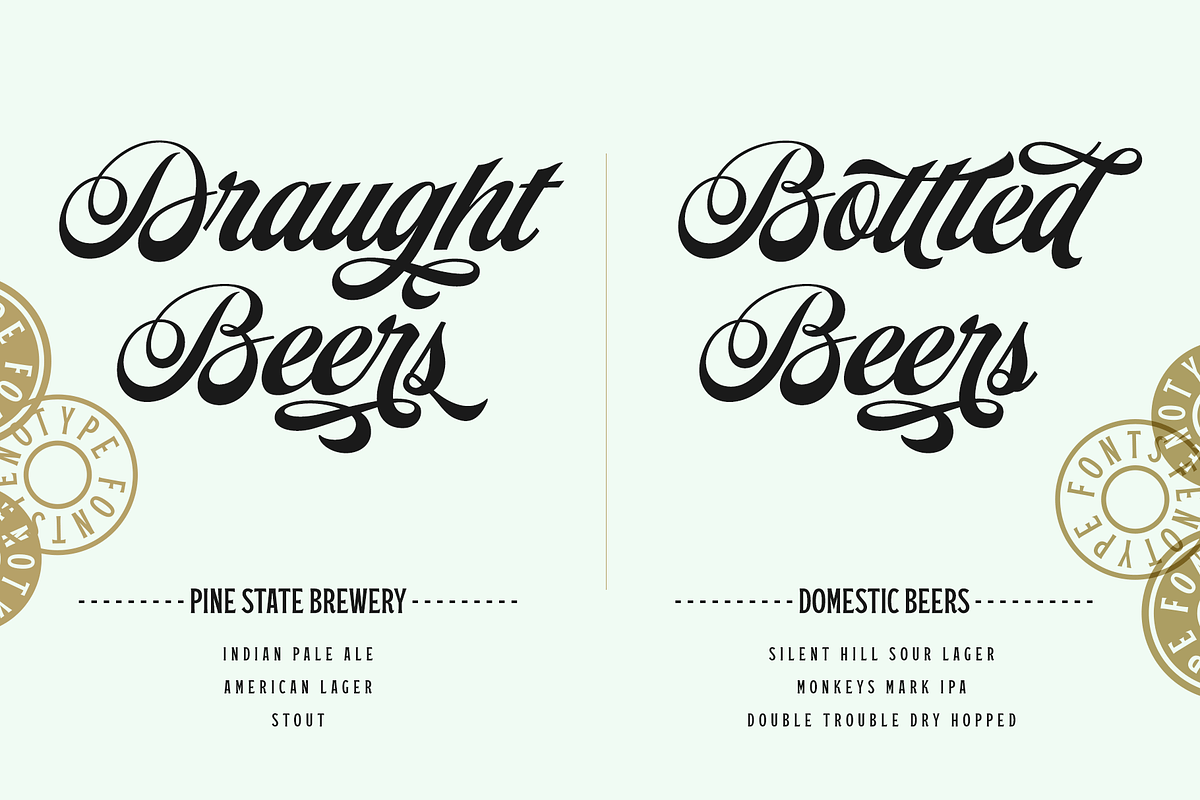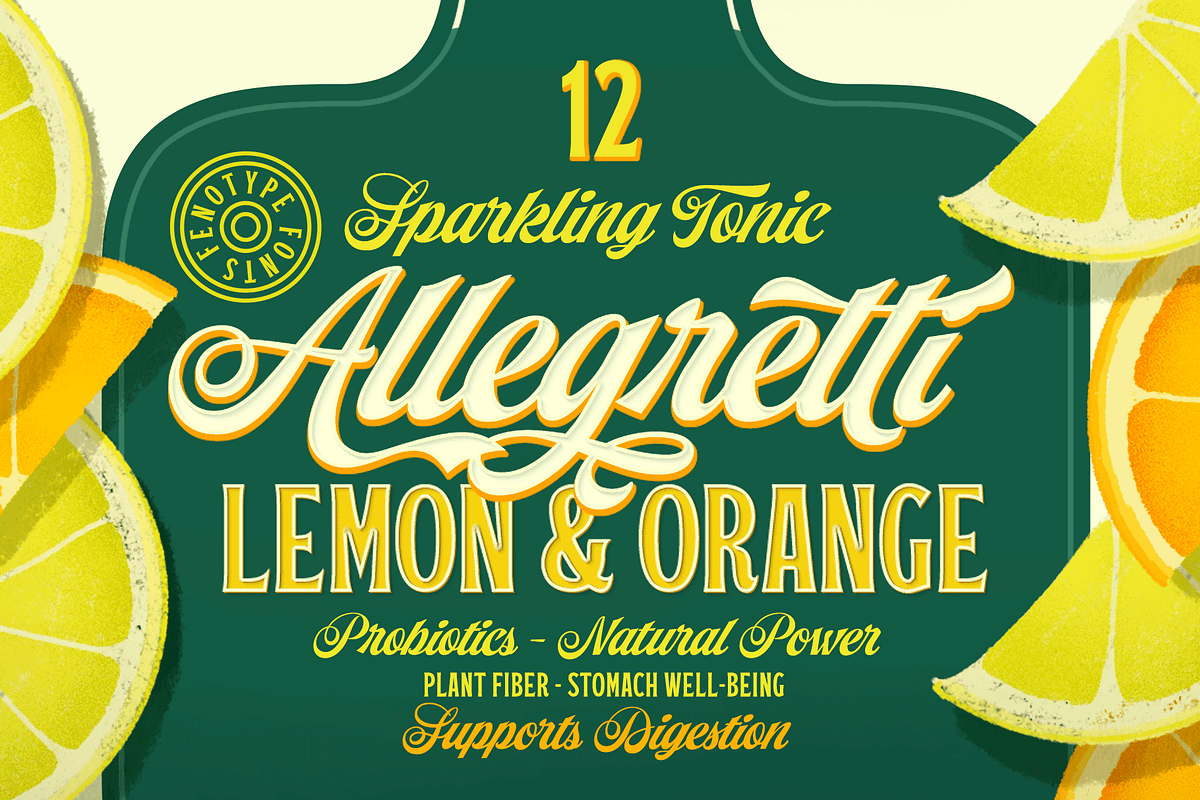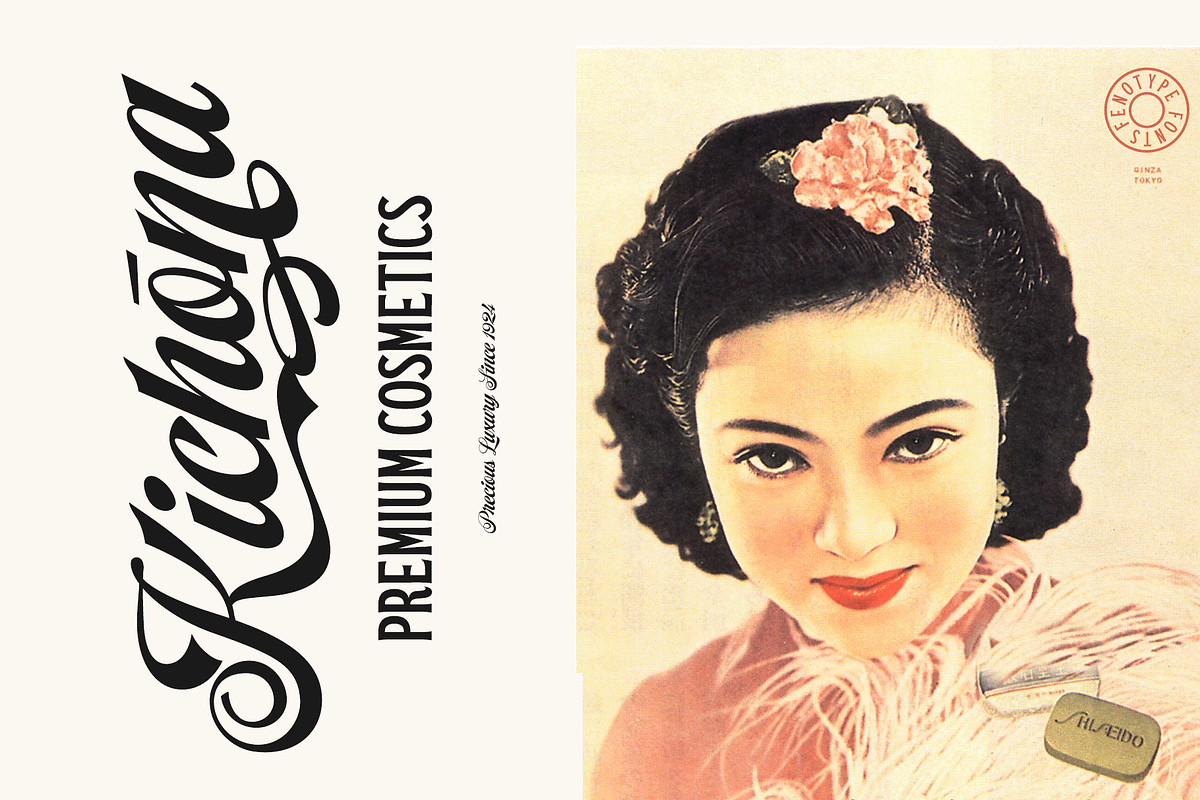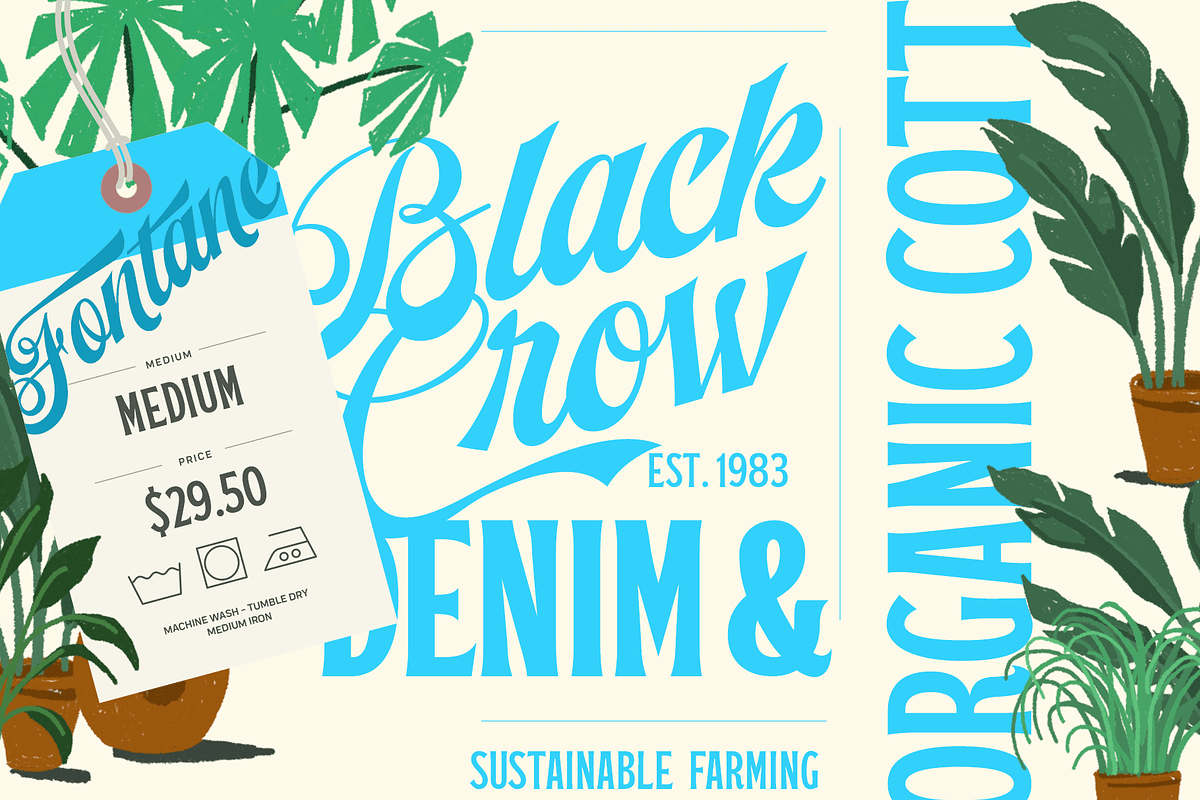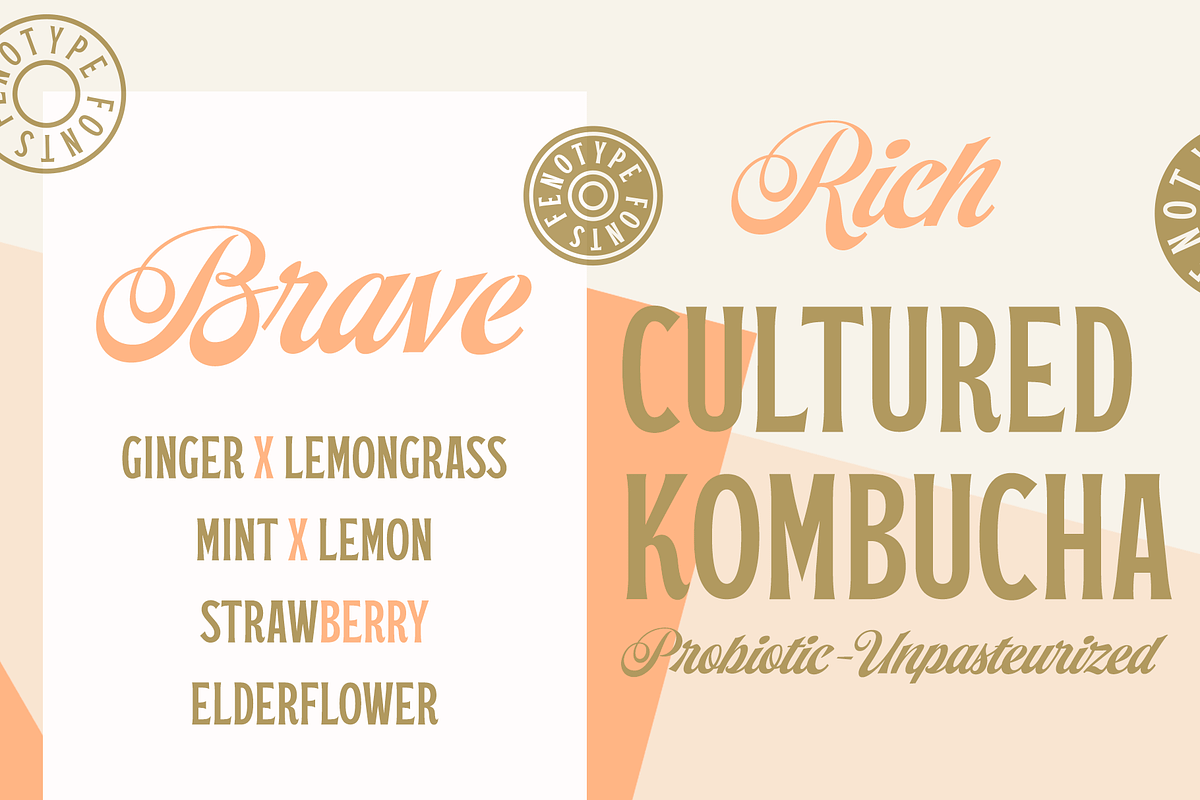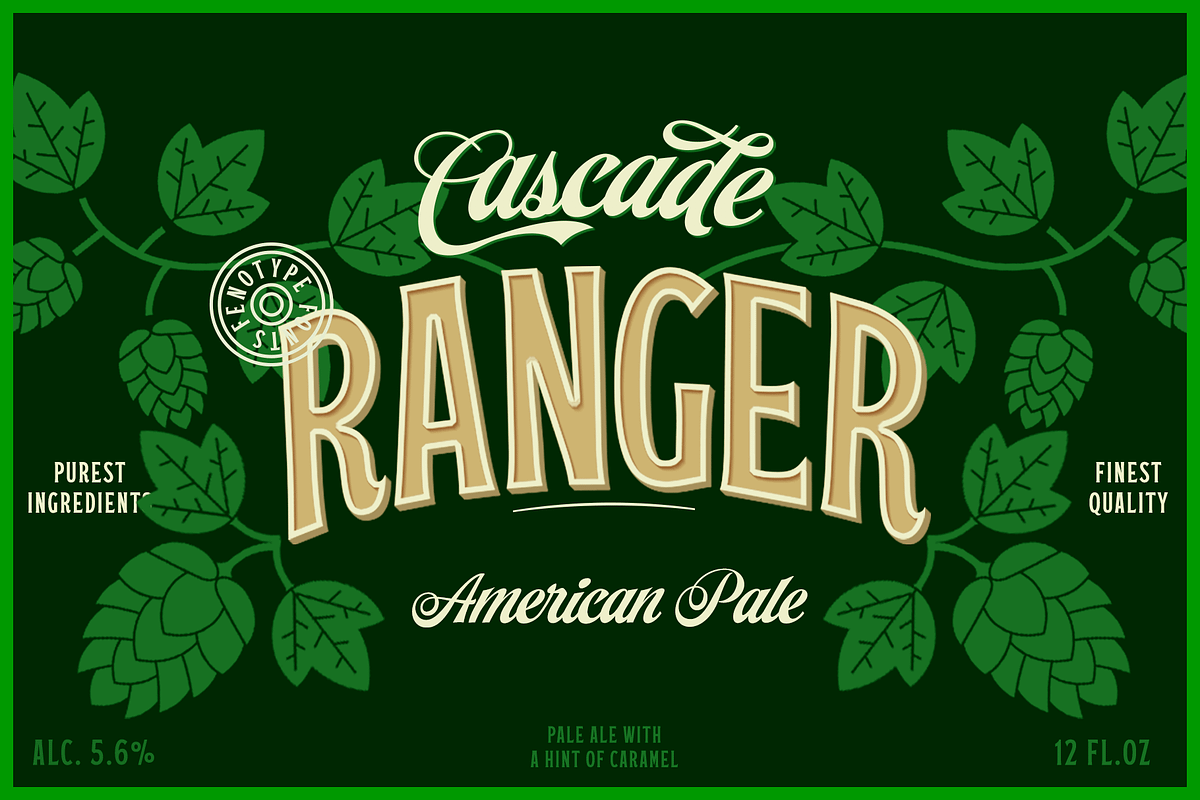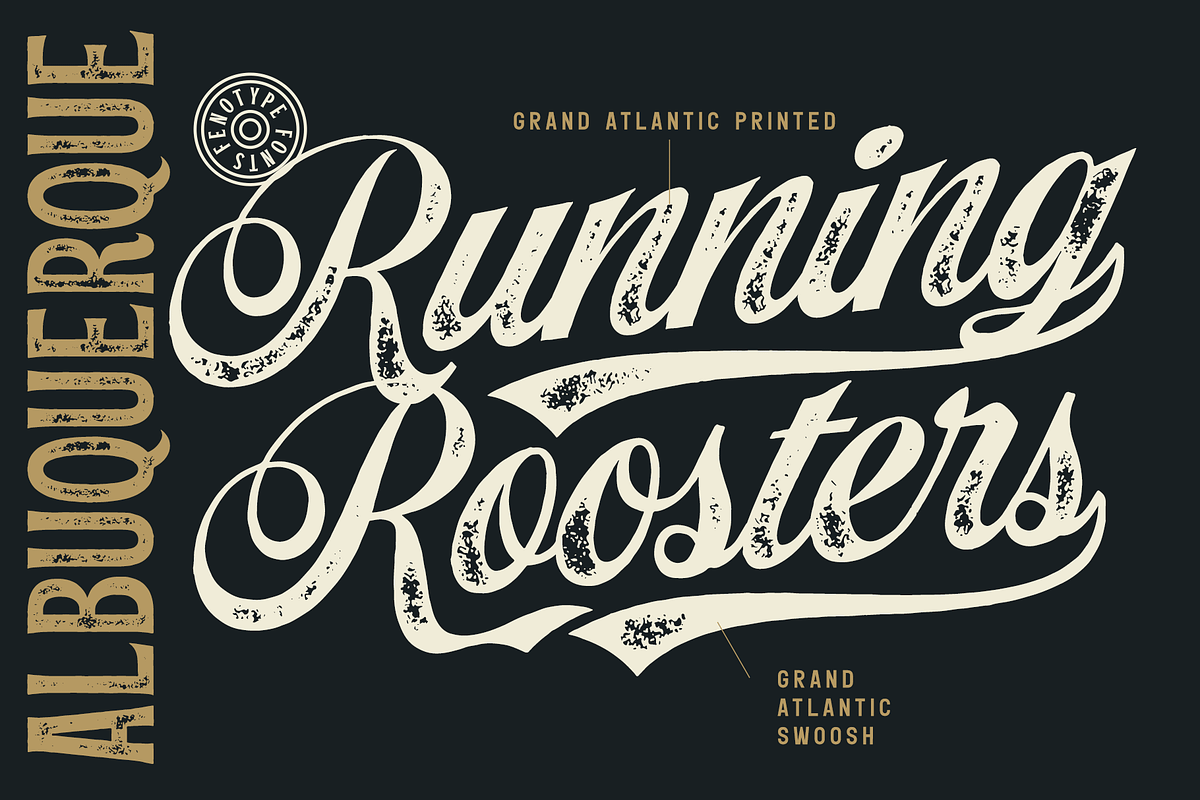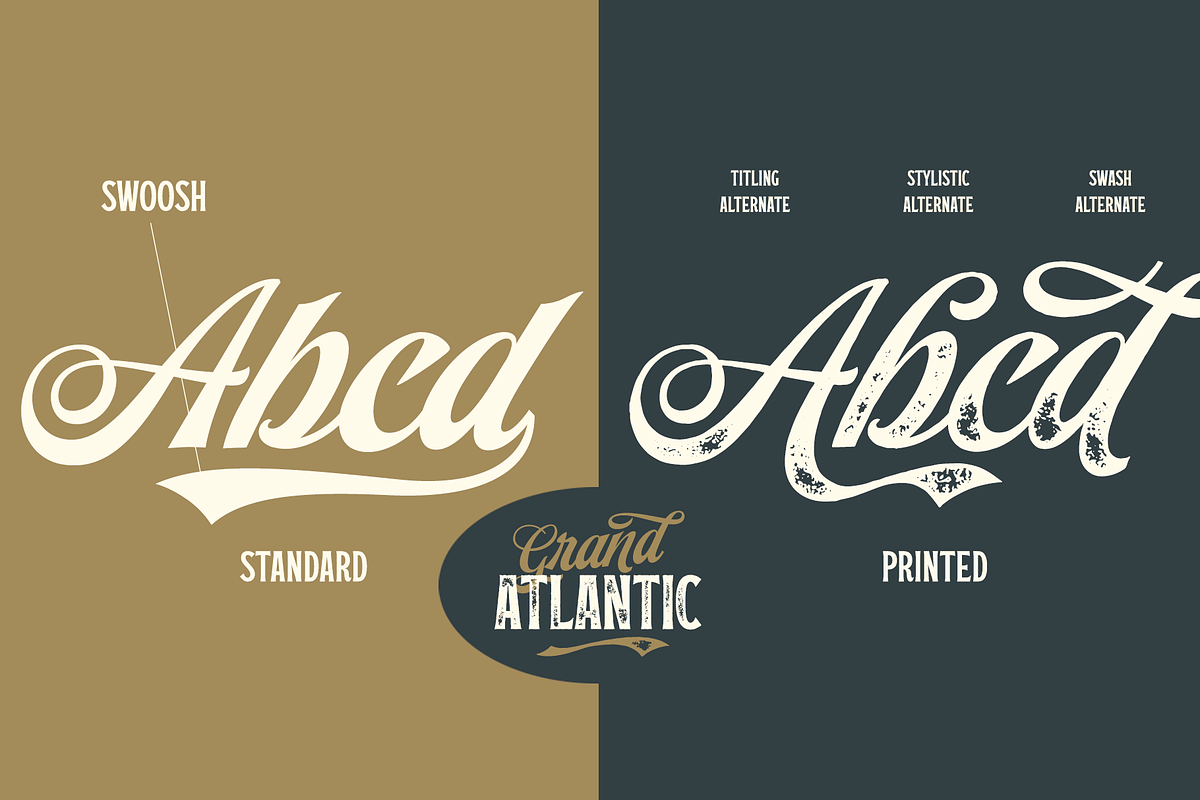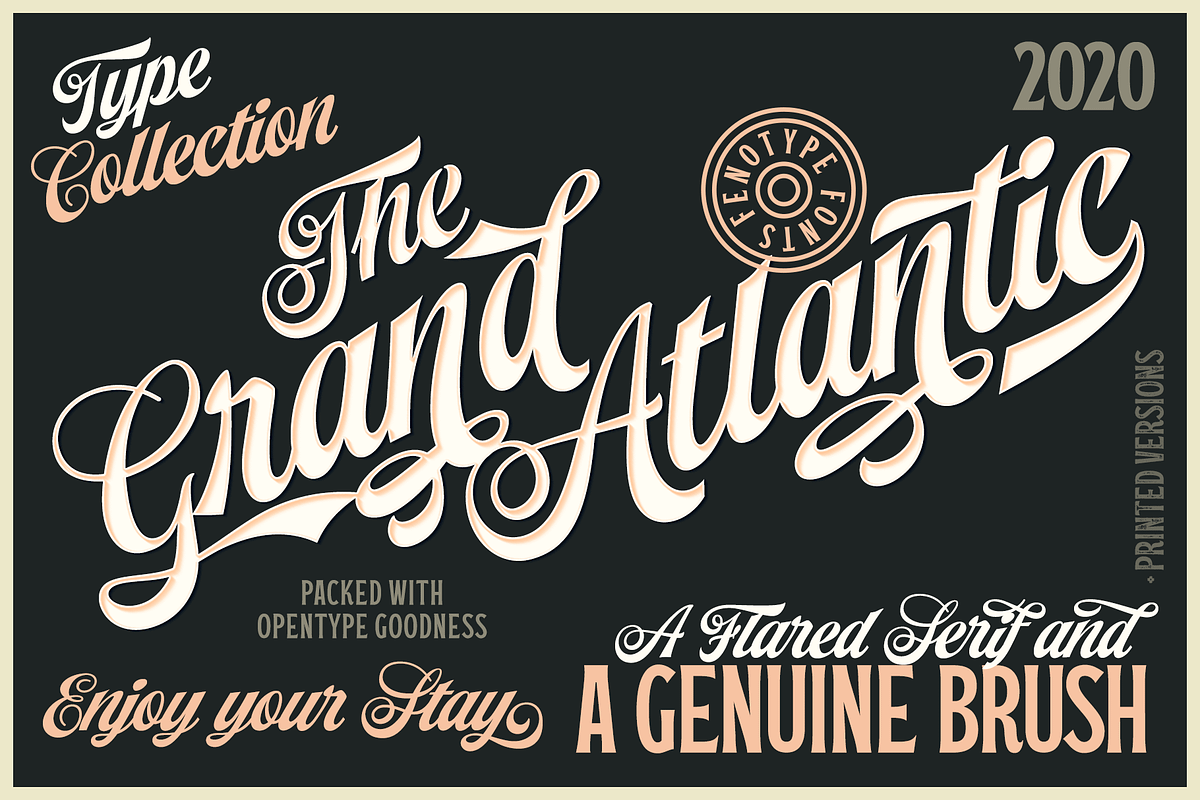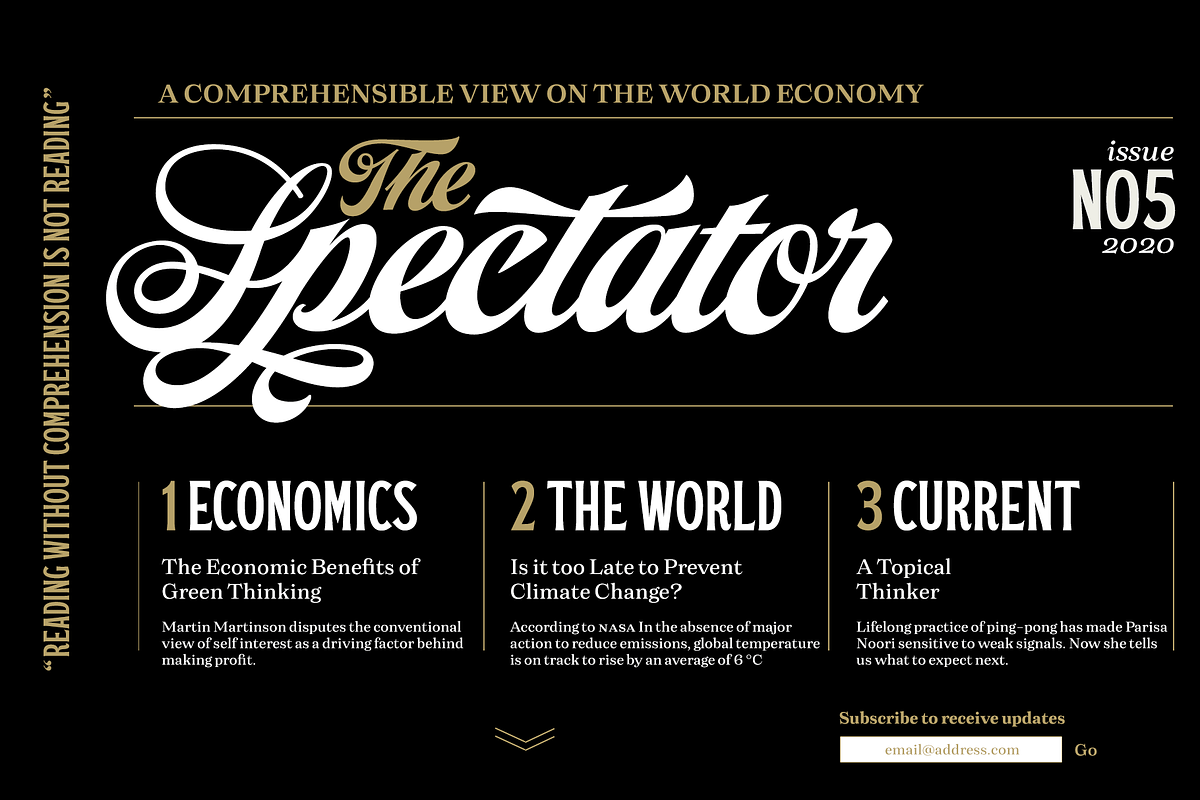
Grand Atlantic is a powerful display package by Fenotype. It’s a genuine Brush script packed with features and Swoosh extras and it’s a striking condensed flared serif in two weights, designed with the same sharp edges on the flares as the Brush. Together they make stunning logotypes, posters or headlines. On top of that there’s a “Printed” version of each. Printed versions are the same but with rugged outlines and a print texture.
Grand Atlantic is great for creating powerful identities for artisanal coffee brands, craft beer, organic juice or a sports teams.
Grand Atlantic Brush is equipped with Standard Ligatures and Contextual alternates that help keeping the connections between letters smooth. They’re automatically on as you should normally keep them. On top of that Grand Atlantic Brush has Stylistic, Titling and Swash Alternates for standard characters if you need more ornamental letters and if you want to break up the rectangular word shapes. There’s even more alternates in the glyph palette, making it total more than 600 glyphs.
Grand Atlantic Swoosh contains 52 shapes designed to go with the Brush. There’s many “terminal swashes” that you can put in the end of a word and it will connect to the last letter, and swirl under the word from there.